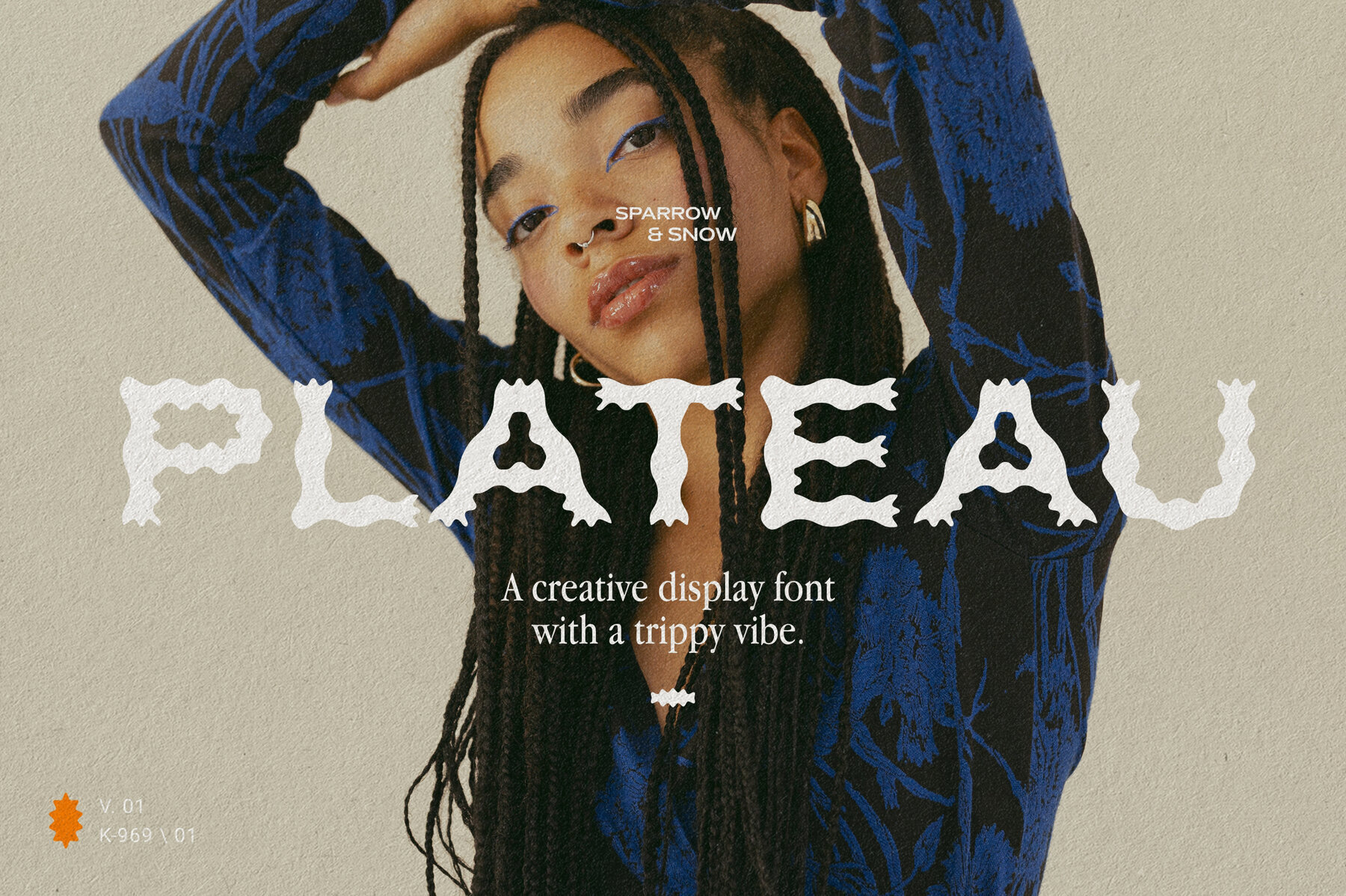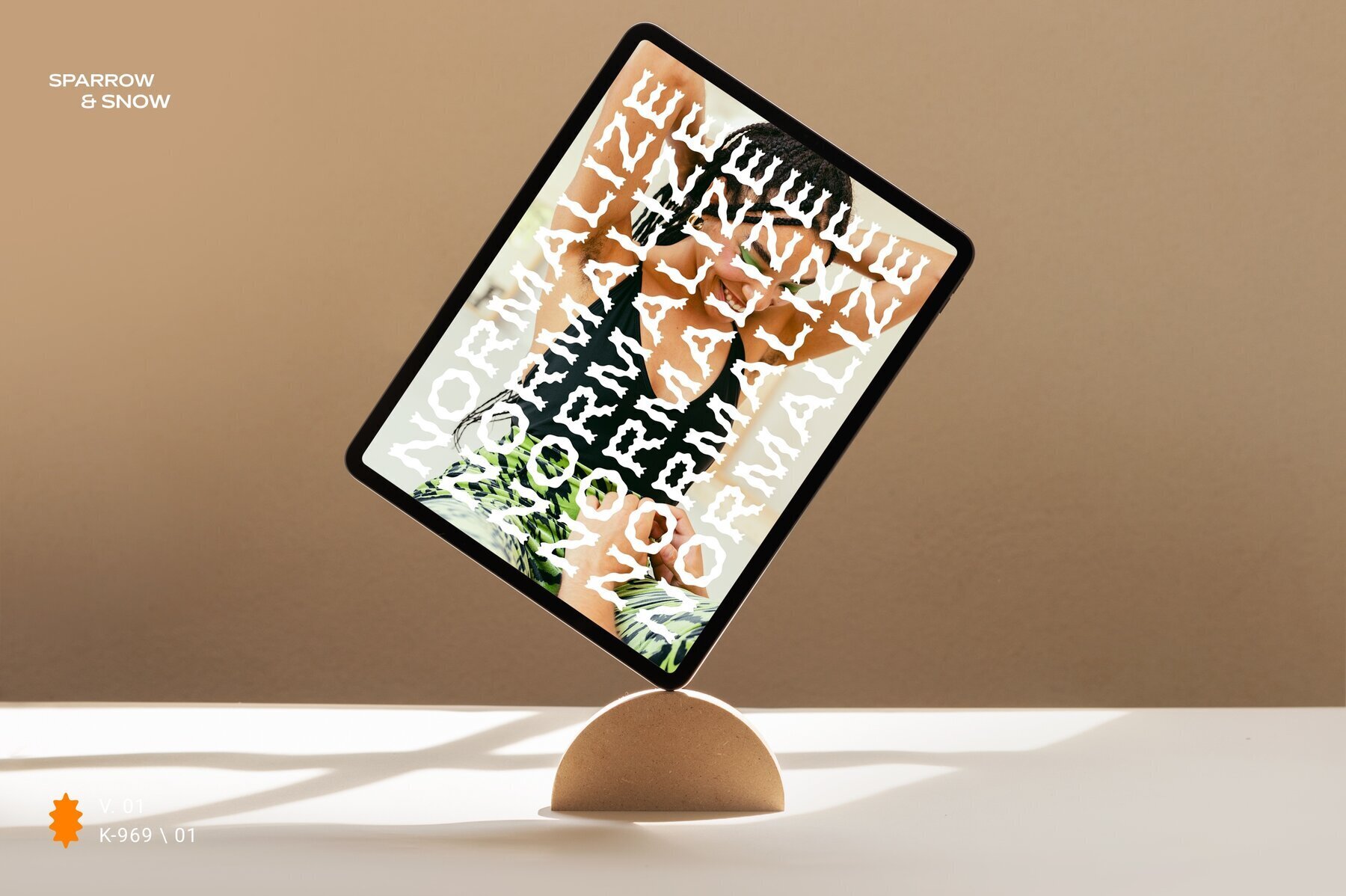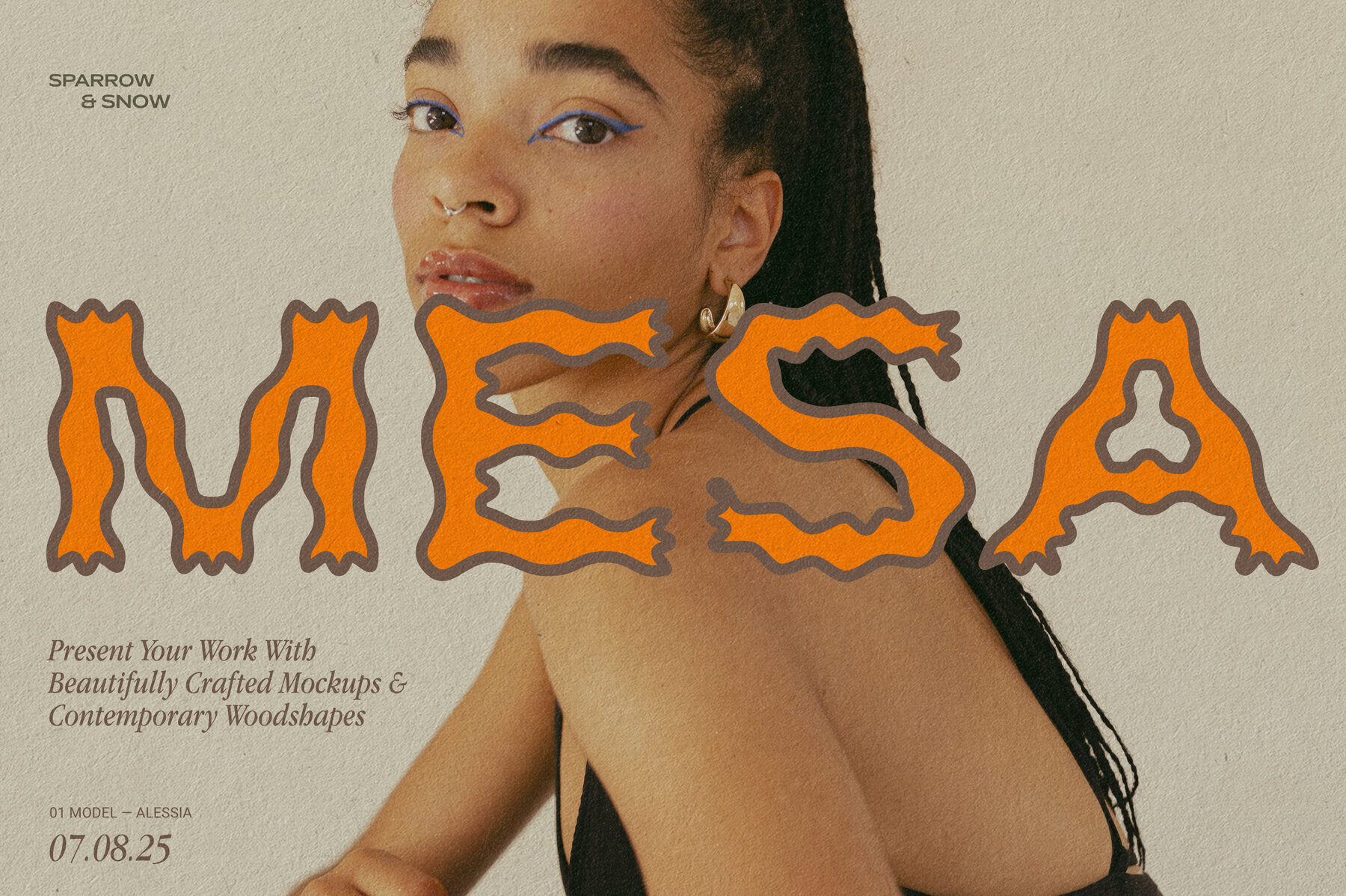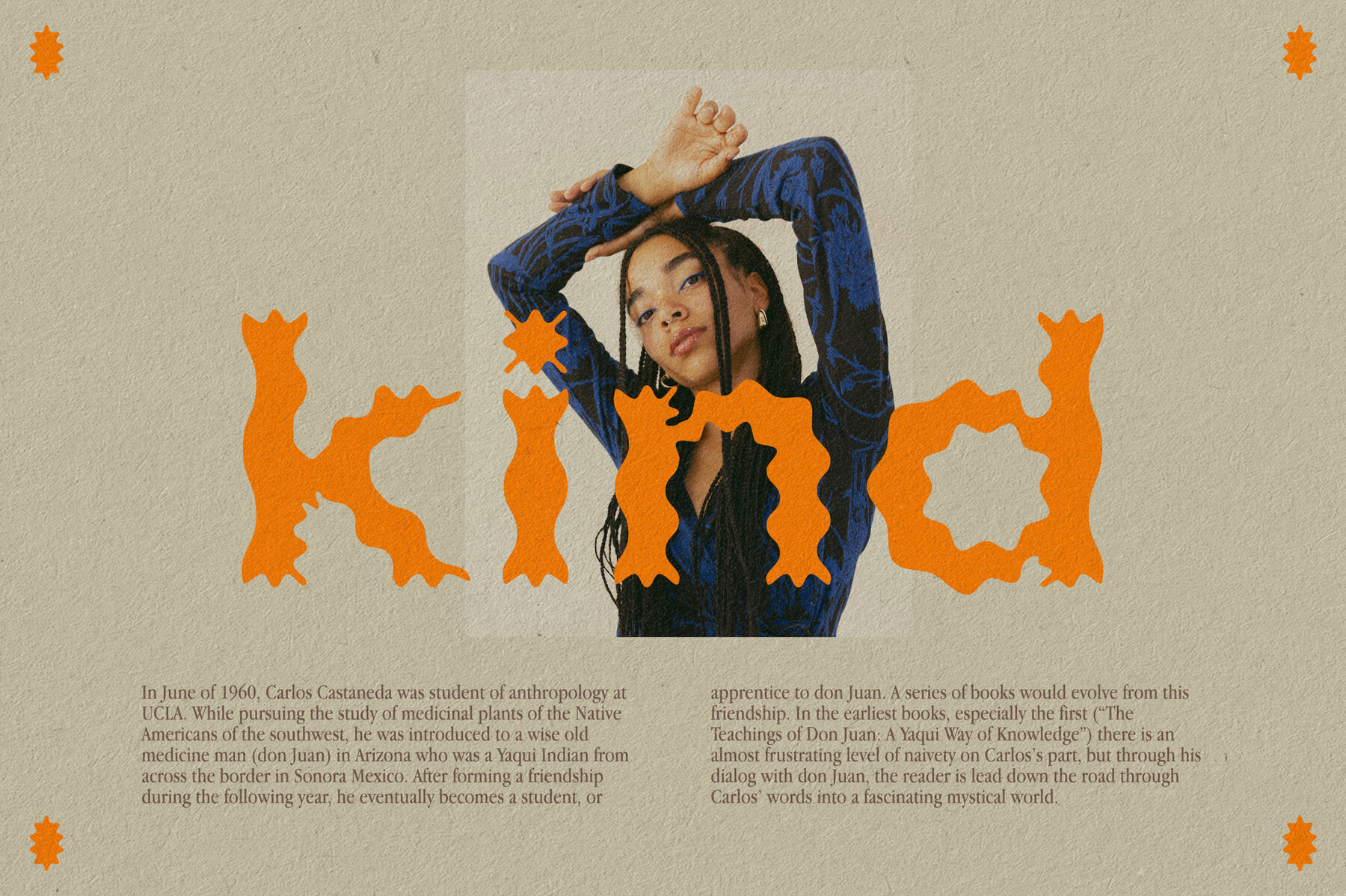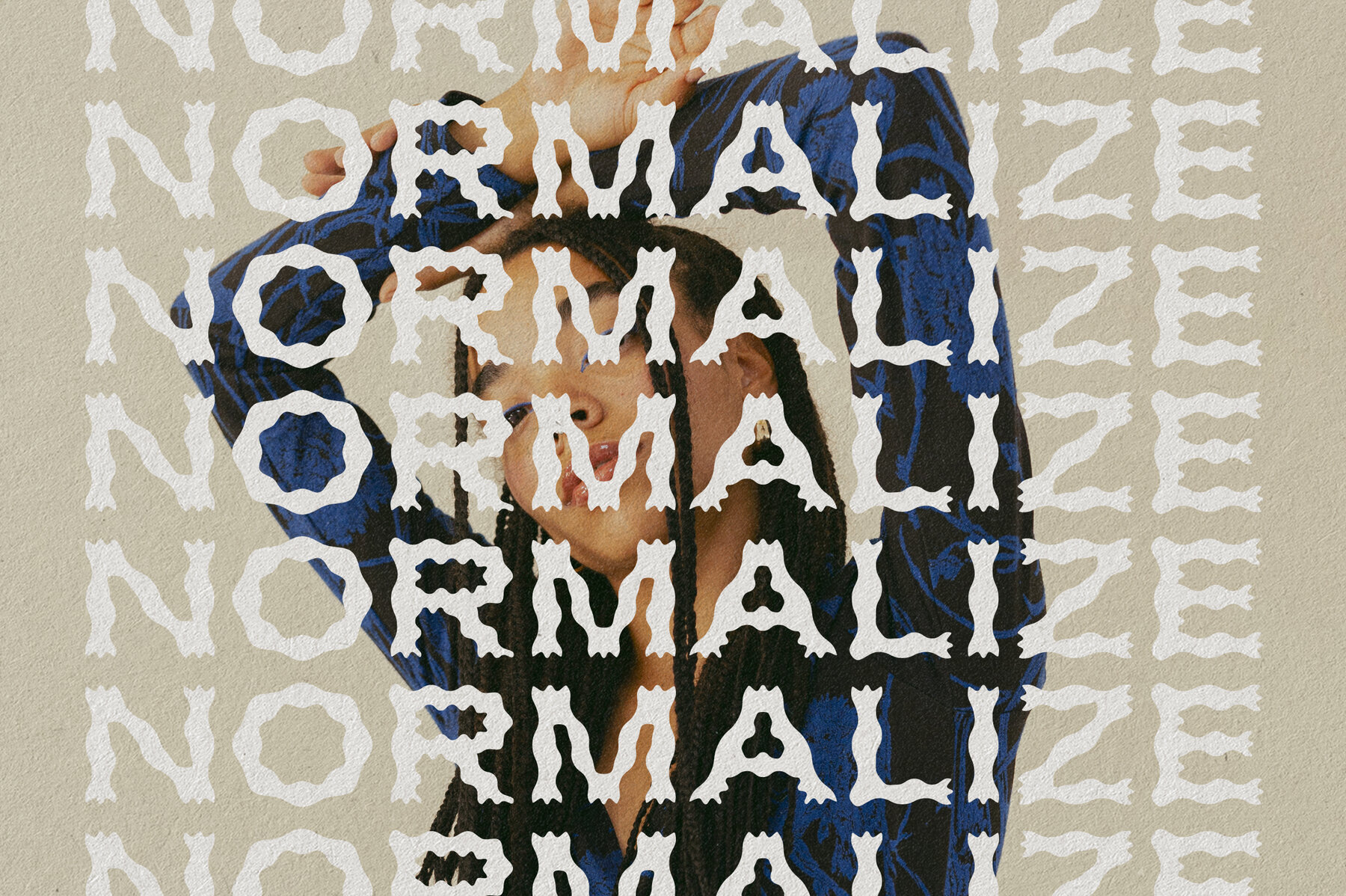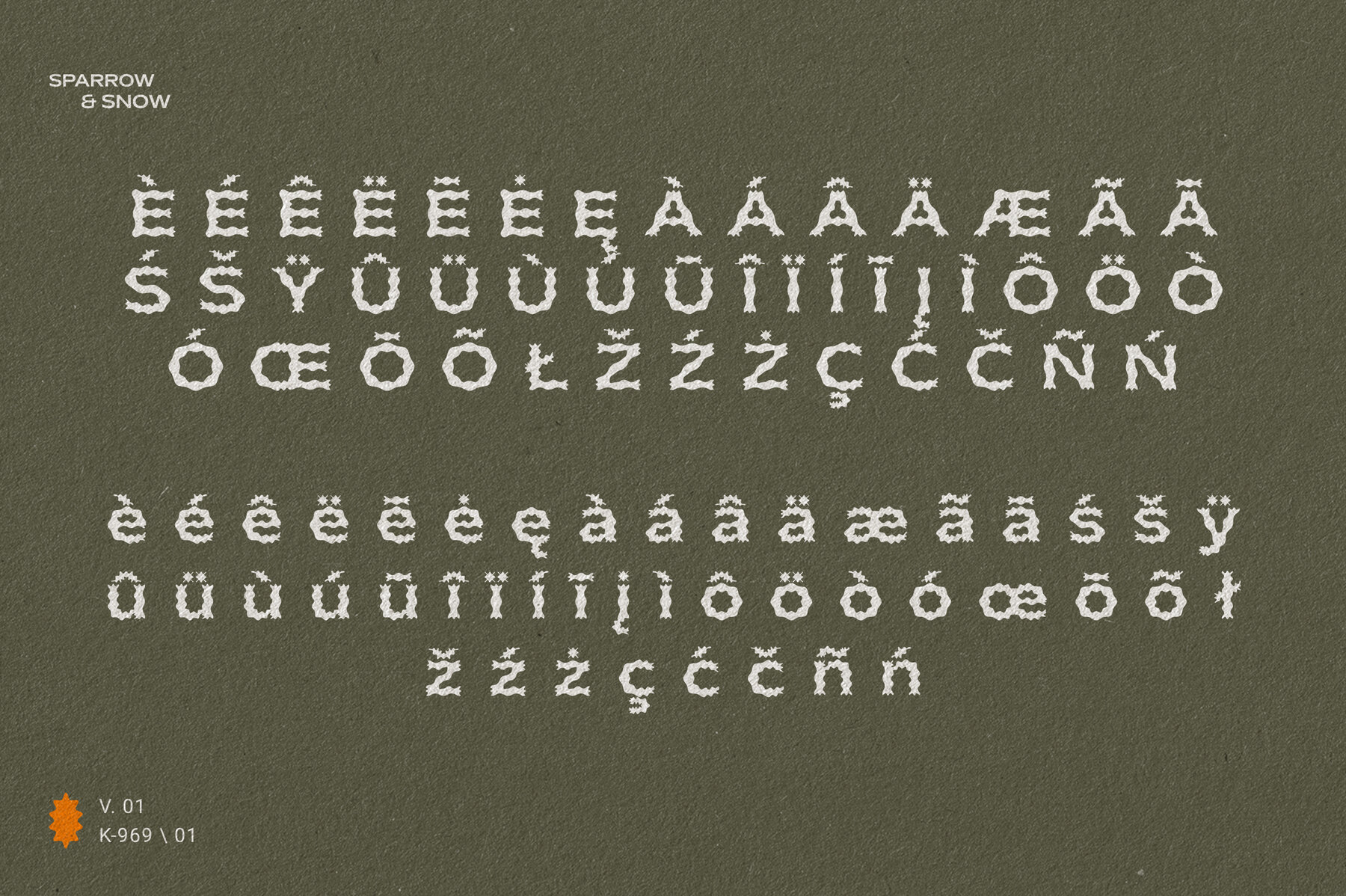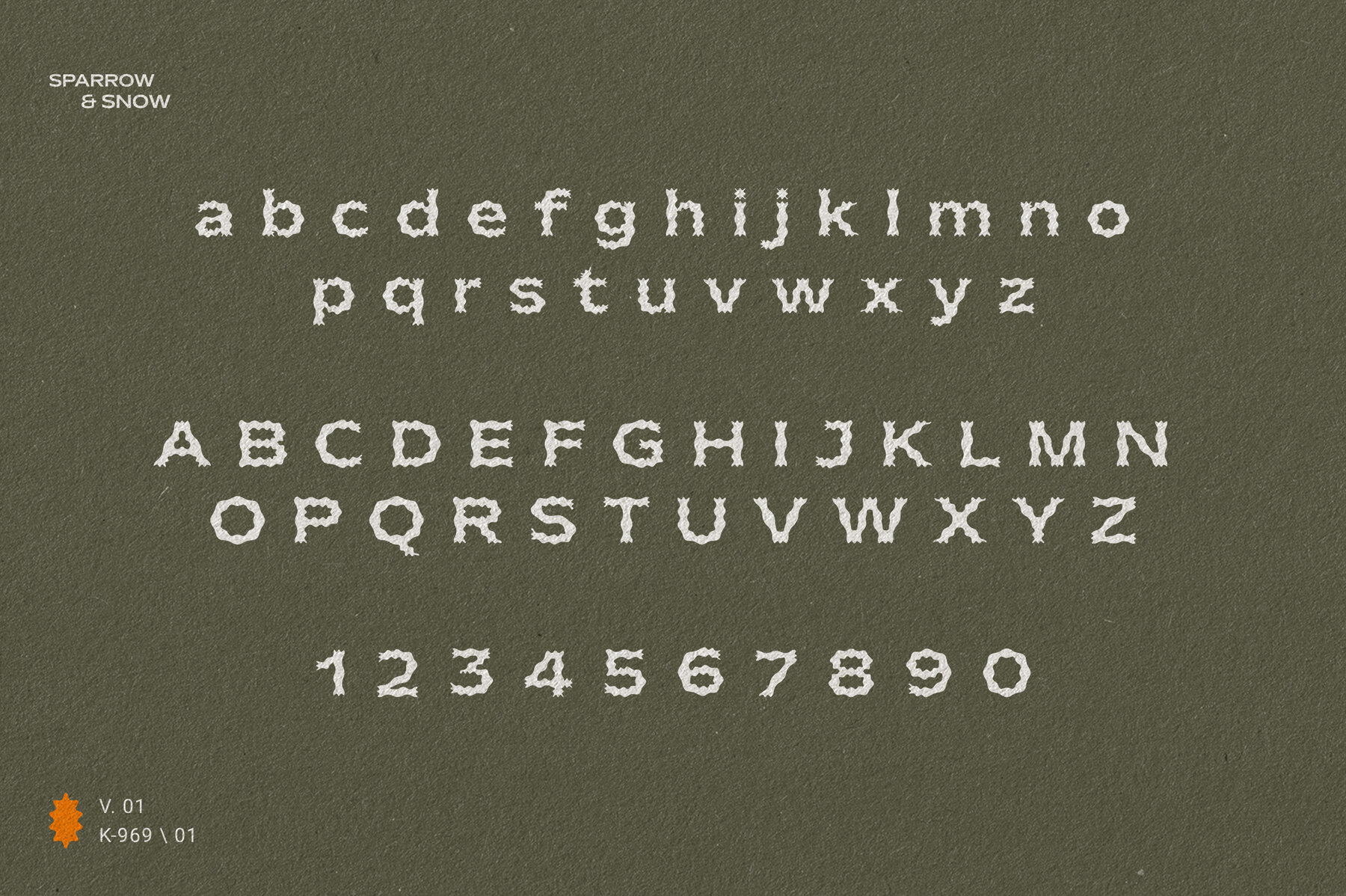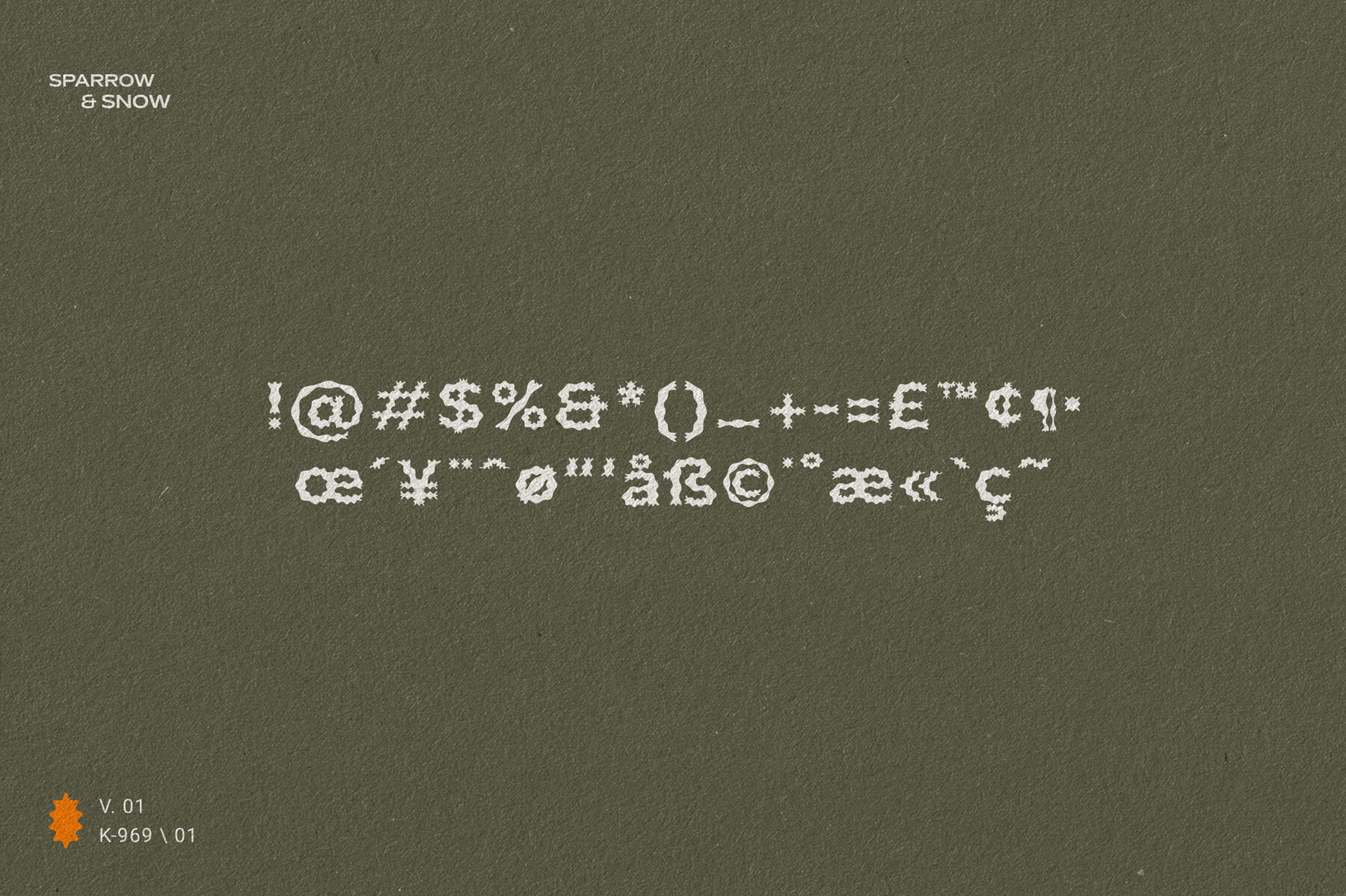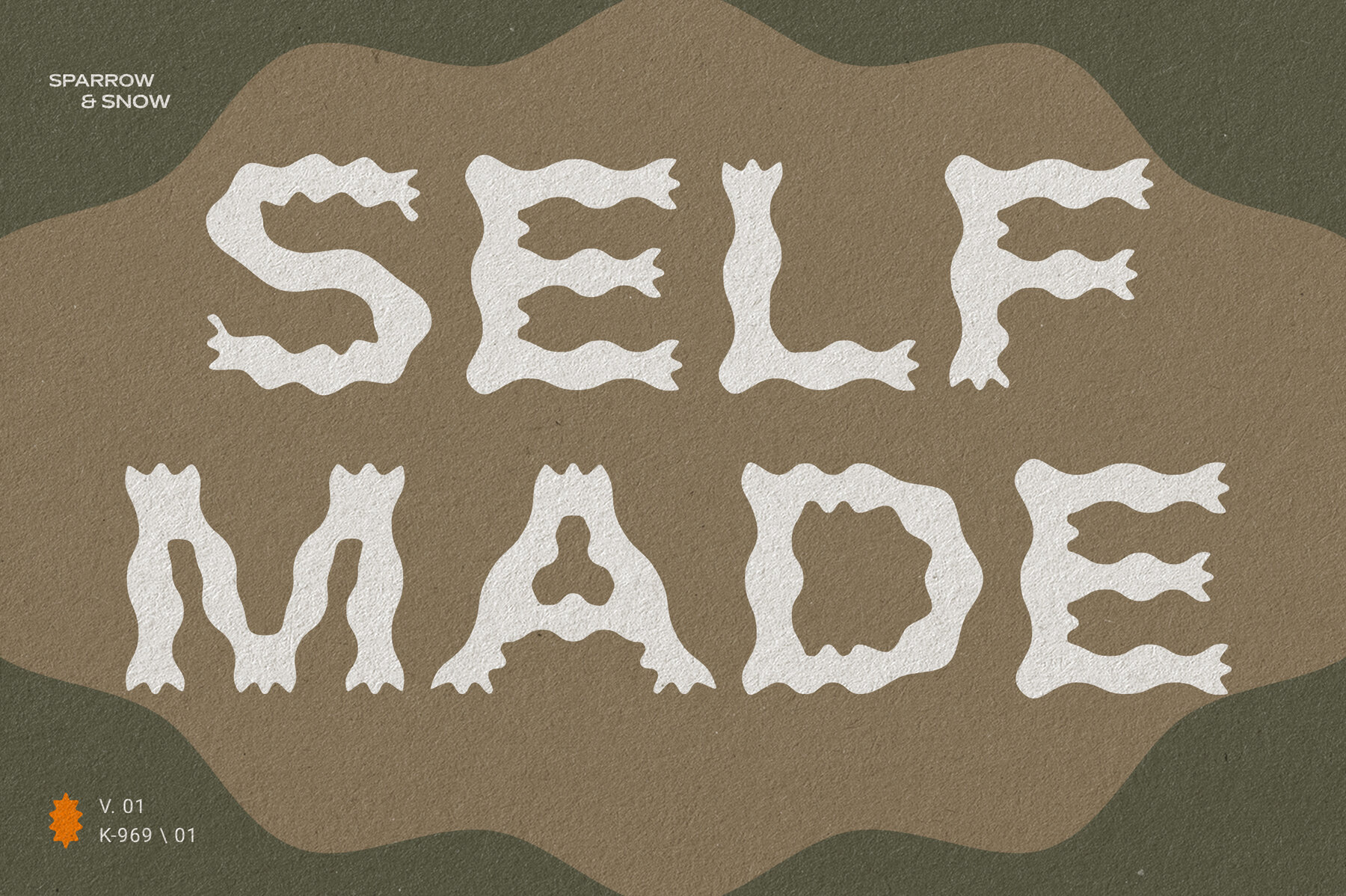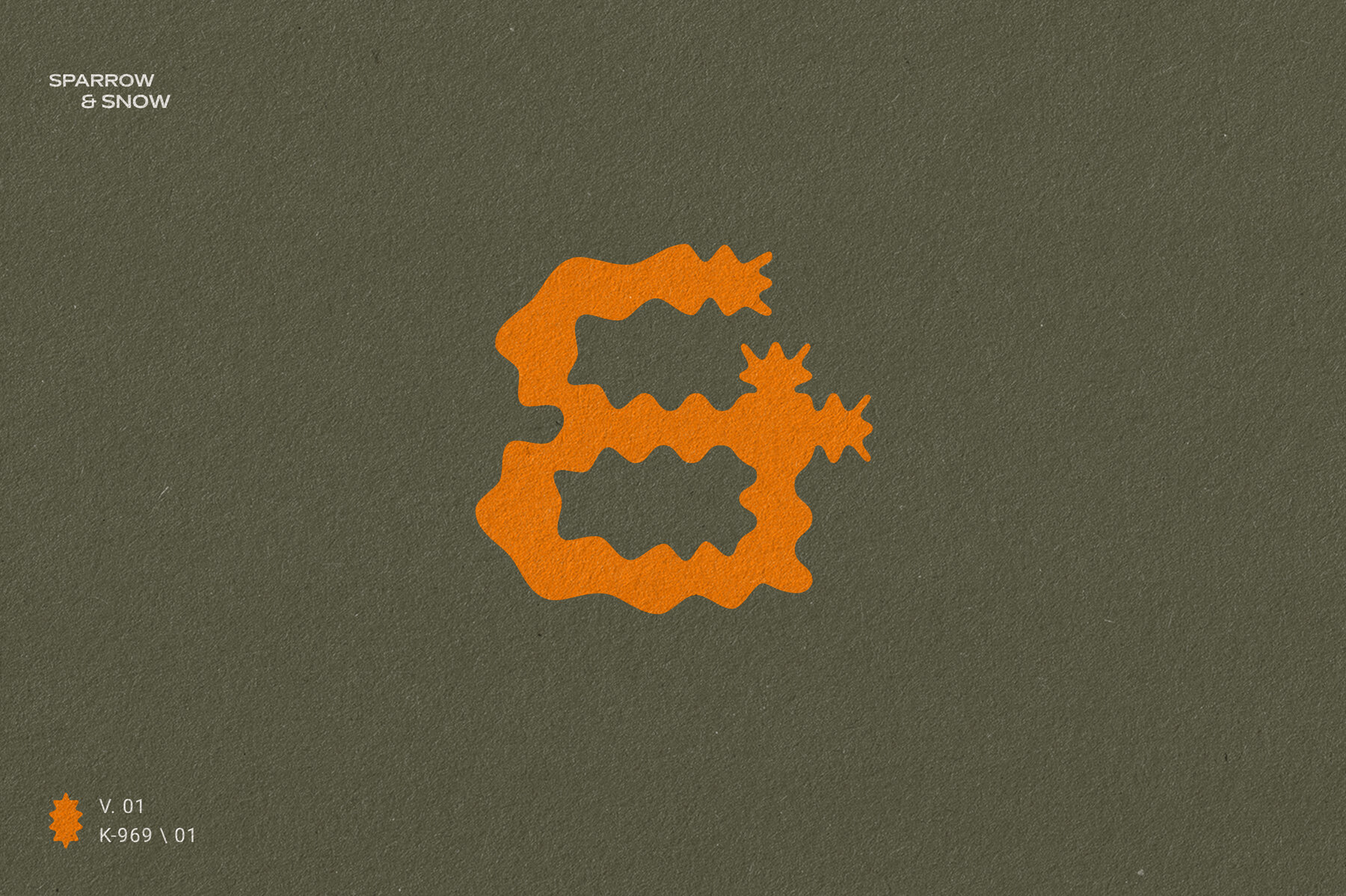
Plateau Font
Plateau
Plateau is a creative display font with a trippy vibe, featuring unique decorative elements that will make your design projects truly stand out.
Plateau performs at its best when used for logos or titles, but it allows for good readability in smaller sizes as well as paragraph text.
Plateau includes a total of 186 characters and multilingual support: uppercase, lowercase, numbers, and special characters.